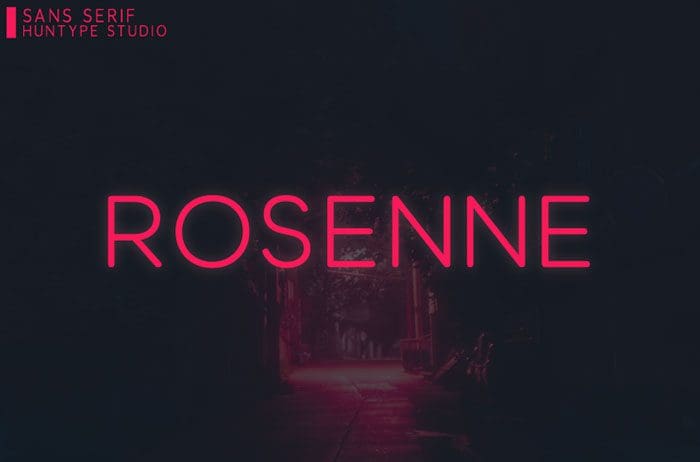
Rosenne Sans Serif Font. This font is perfectly adept for use as large scale headlines, the masthead, and titles, but robust enough to perfectly communicate small runs of data, footnotes, and more. Thanks to Mas Anis for sharing this font! Take a look at this portfolio for more of his stunning fonts.